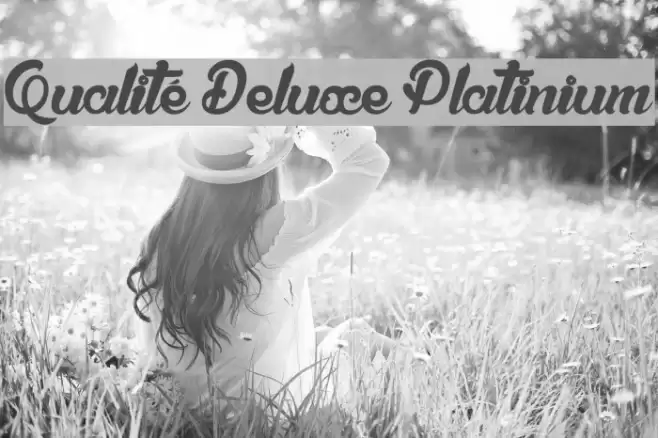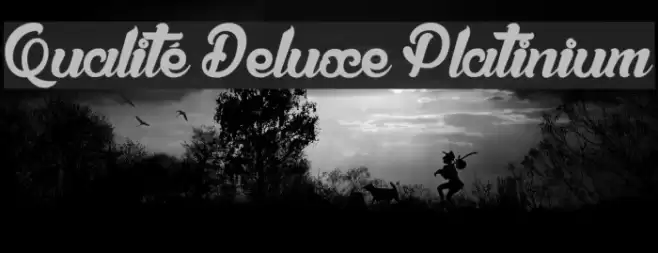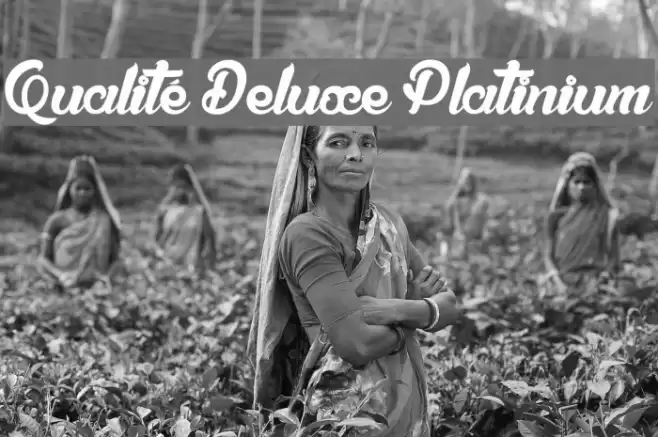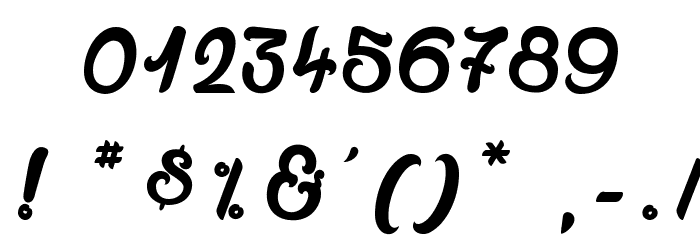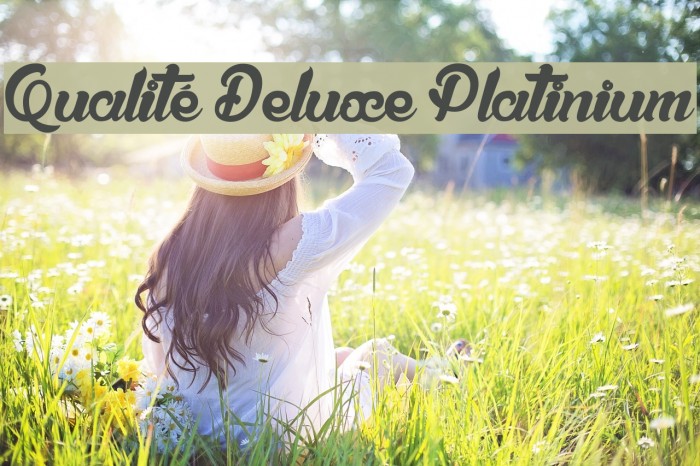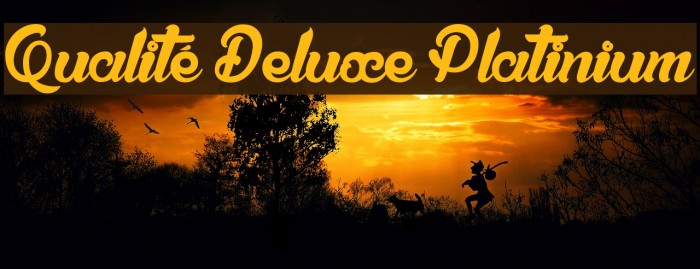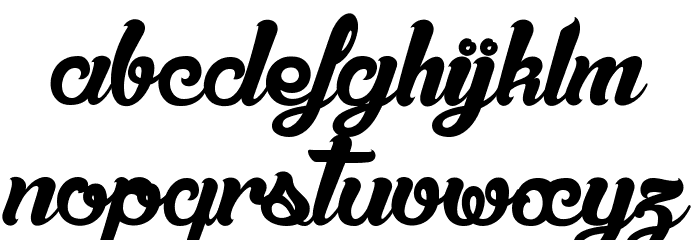
Qualité Deluxe Platinium Font
Qualité Deluxe Platinium Description
This font features a bold and decorative script style with a flowing, cursive appearance. The uppercase letters are elaborate with intricate loops and swirls, giving a sense of elegance and sophistication. The lowercase letters maintain a consistent style, with smooth curves and a connected flow that enhances readability while retaining a decorative flair. The numerals are distinct and bold, matching the overall aesthetic of the font. Special characters are designed with the same attention to detail, ensuring they integrate seamlessly with the letters and numbers. This font is ideal for projects that require a touch of luxury and refinement.
A bold, decorative script font with elegant loops and swirls from Uncategorized fonts.
- Proposed Projects: Ideal for wedding invitations, luxury branding, elegant signage, and decorative headlines.
- Use Case: Logos, Headlines, Invitations